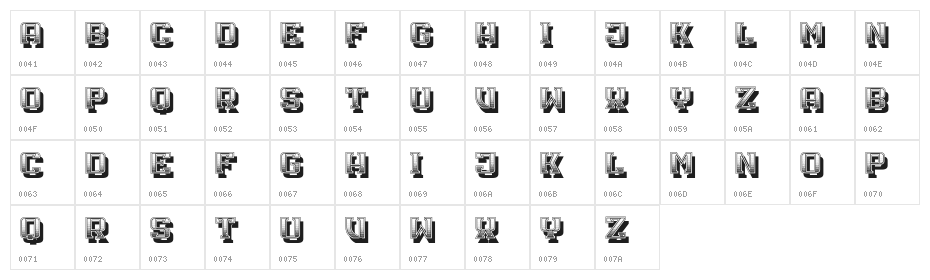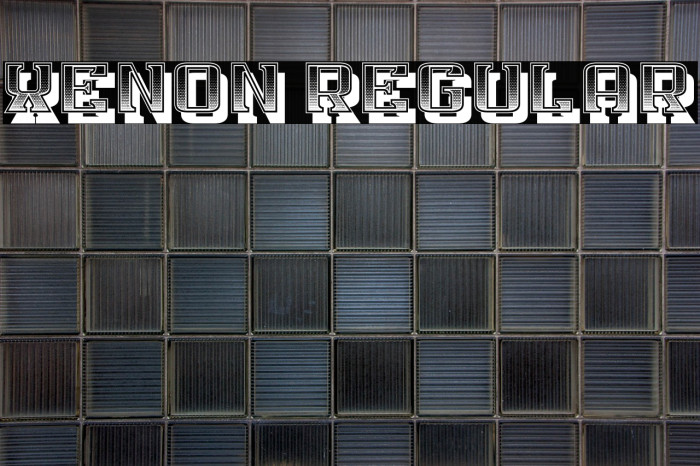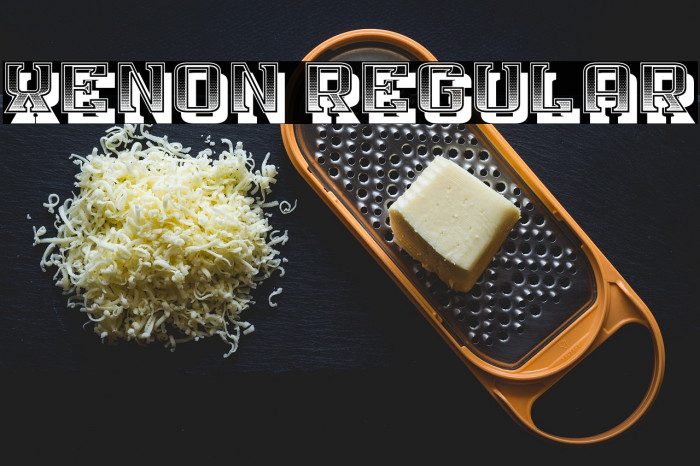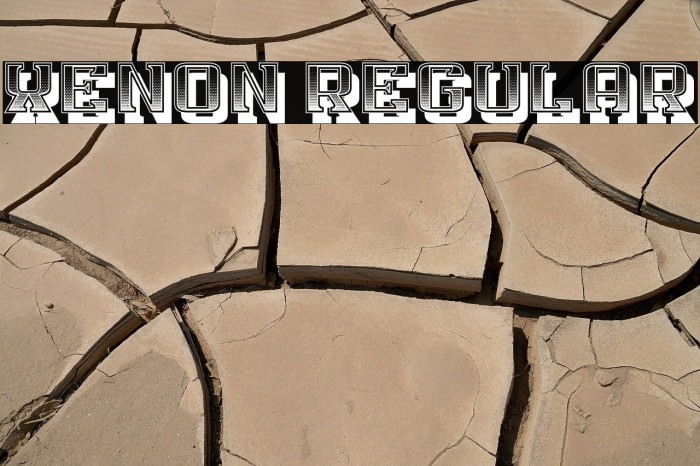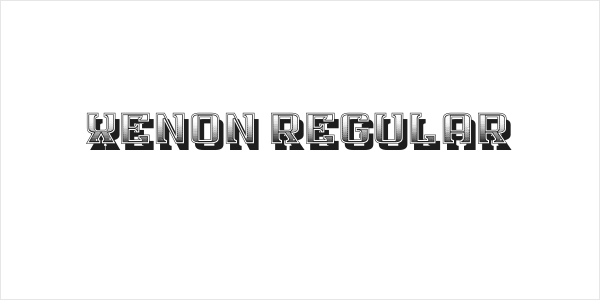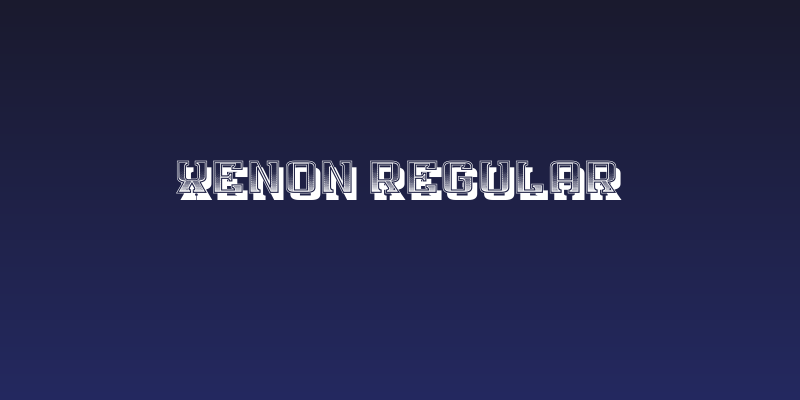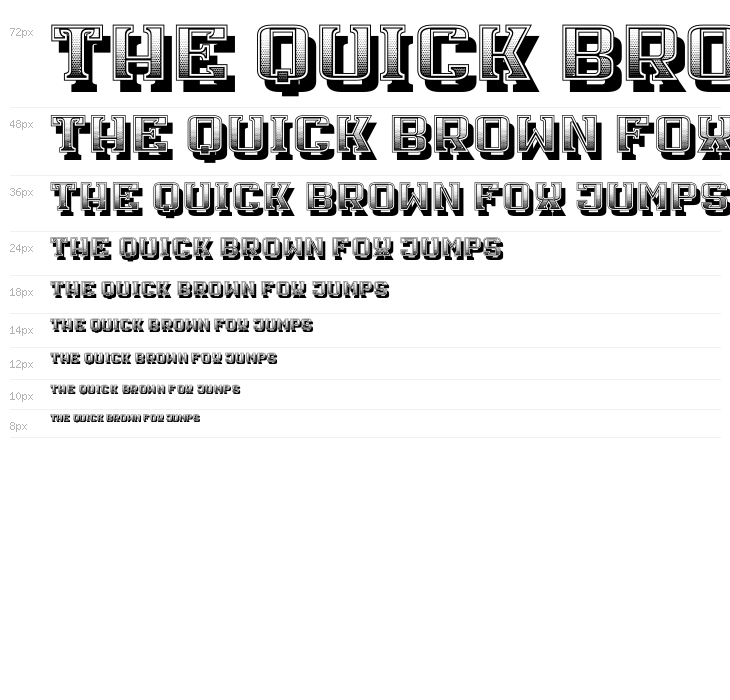
Xenon Regular Font
Xenon Regular Description
This font features a bold, decorative style with a three-dimensional effect that gives it a striking, layered appearance. Each character is outlined with a thick border, creating a sense of depth and dimension. The interior of the letters is filled with intricate patterns, adding a textured look that enhances its visual appeal. The font is highly stylized, making it suitable for eye-catching designs. Its boldness and complexity make it ideal for projects that require a strong visual impact.
| Proposed Projects | Ideal for posters, headlines, logos, and any design needing a bold, eye-catching typeface. |